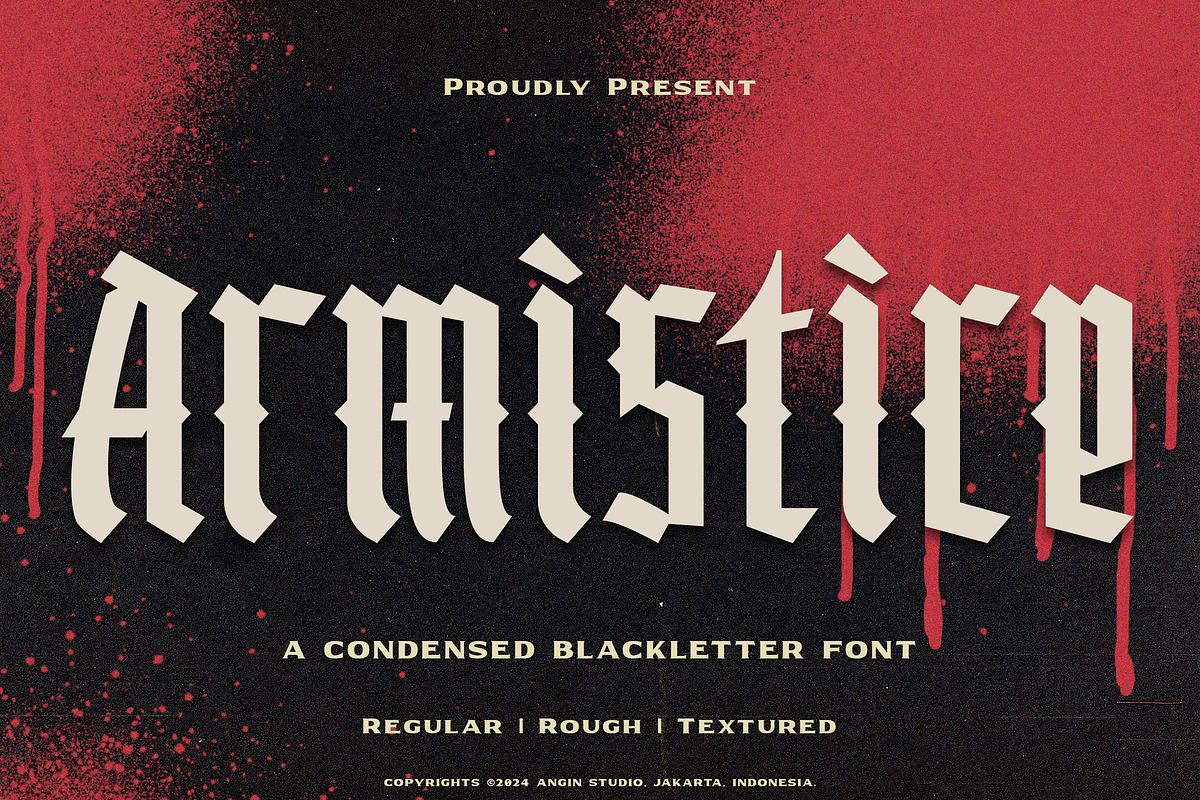
Armistice Blackletter Fonts Free Download is a bold and historic typeface that pays tribute to traditional blackletter and gothic calligraphy. With its sharp angles, ornate details, and medieval charm, this font is perfect for vintage posters, tattoo designs, album covers, biker branding, and projects with a dark or historical theme.
Make a lasting statement with Armistice Blackletter Fonts Free Download, and bring gothic sophistication and timeless edge to your creative work. A must-have for designers who appreciate tradition with attitude.